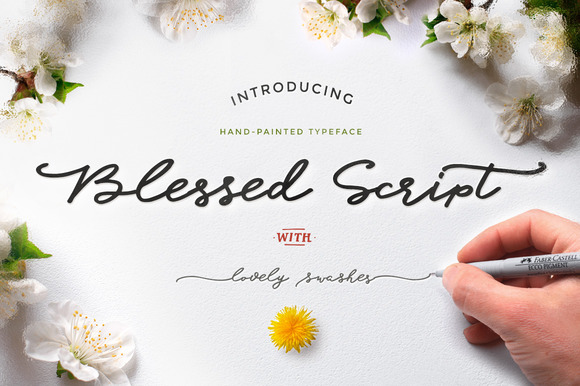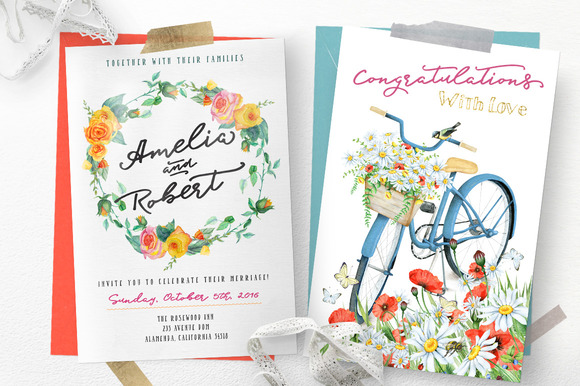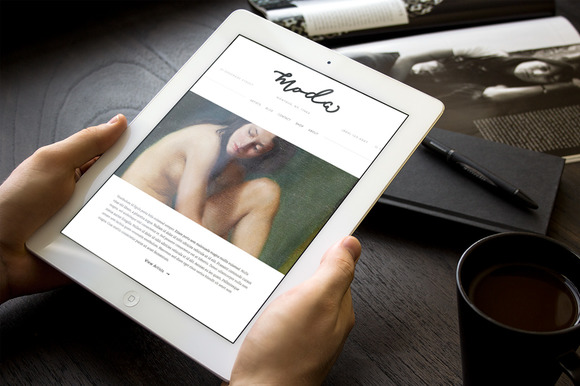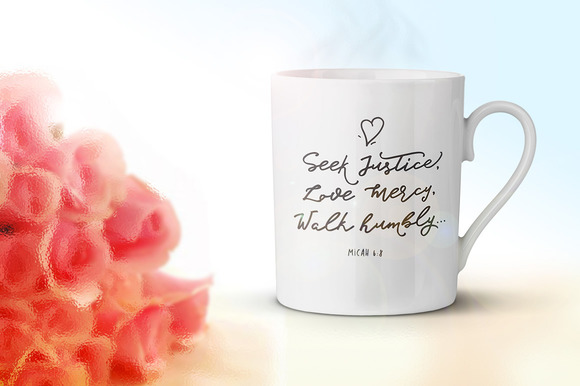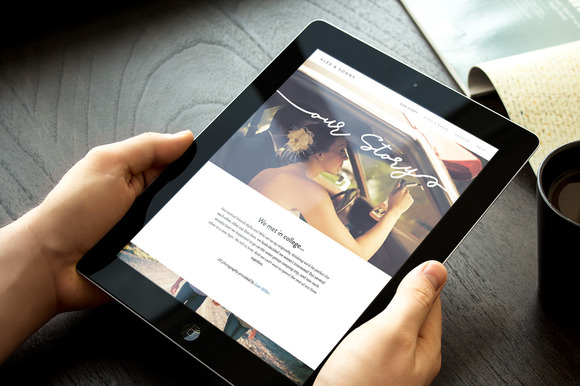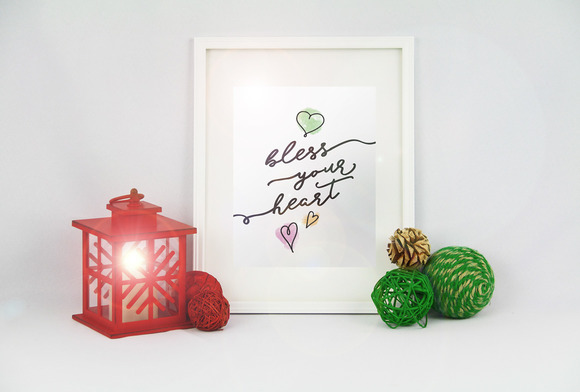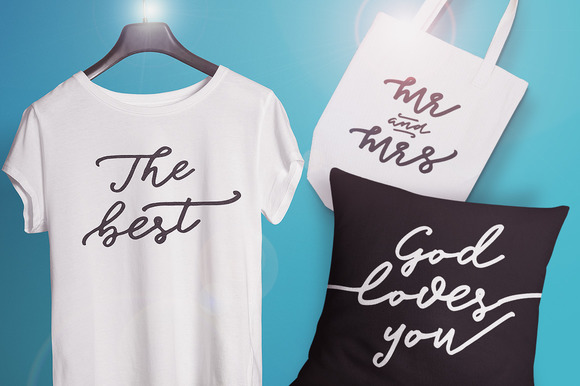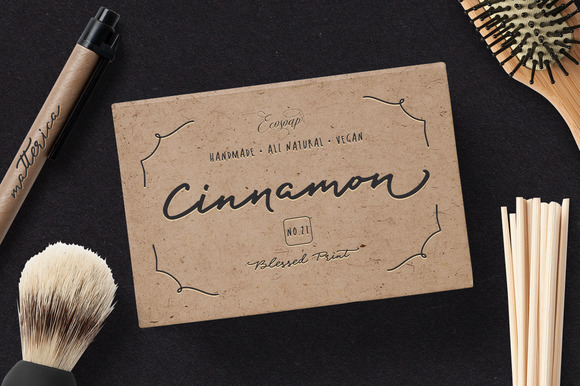
Blessed Script Font
About Blessed Script Font
Casual and freeform, Blessed can be used to anchor your designs while staying modern and unfussy. Blessed contains 3 distinct handwritten font styles: Blessed, a romantic script; Appetite, a handwritten sans serif; and Manaliga, a handwritten serif.
With over 215 beautiful hand-sketched vector illustrations, Blessed is an all-encompassing graphic set, perfectly suitable for a large range of projects.